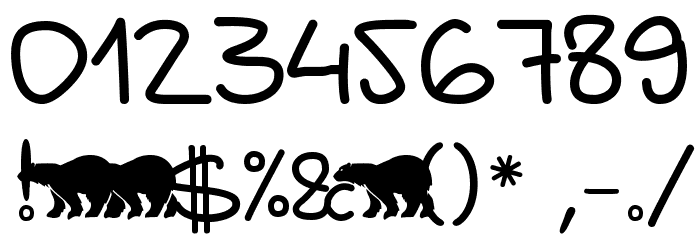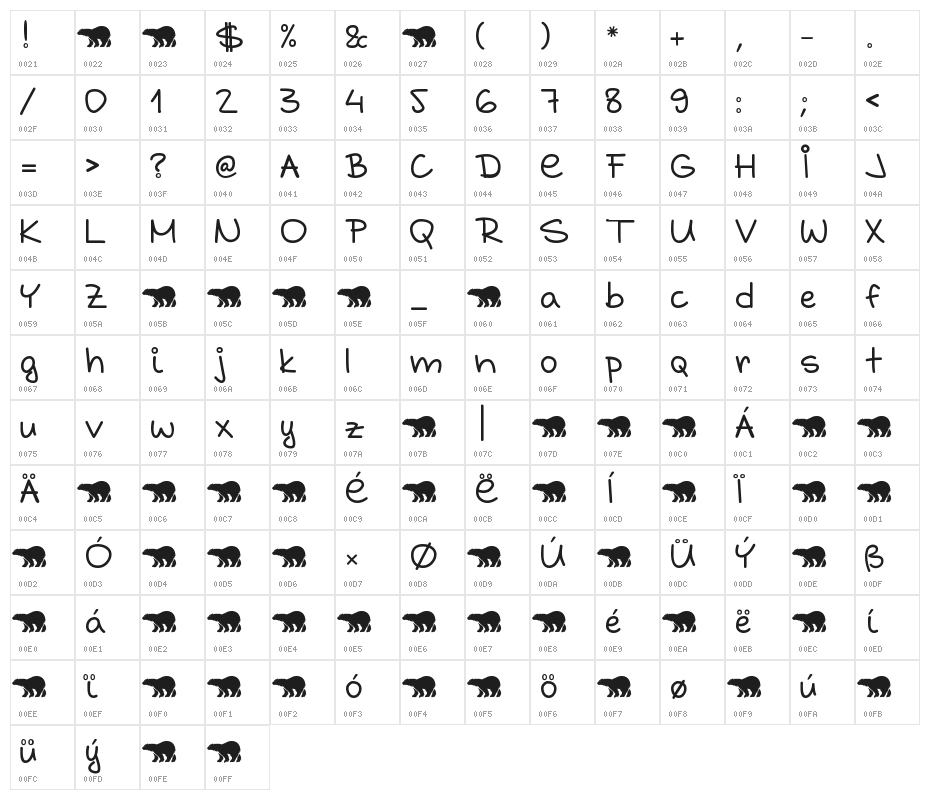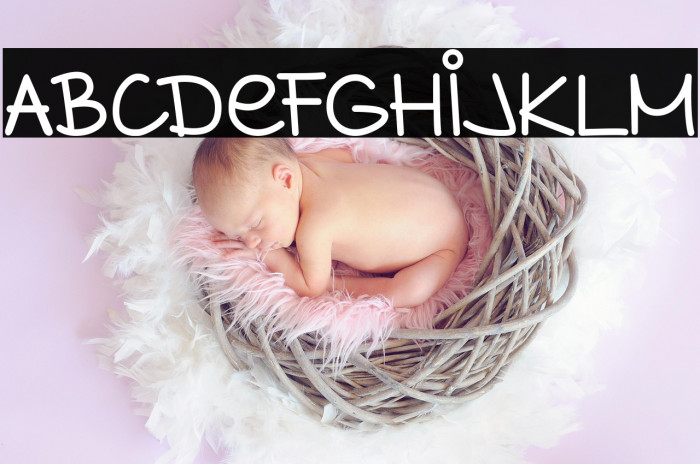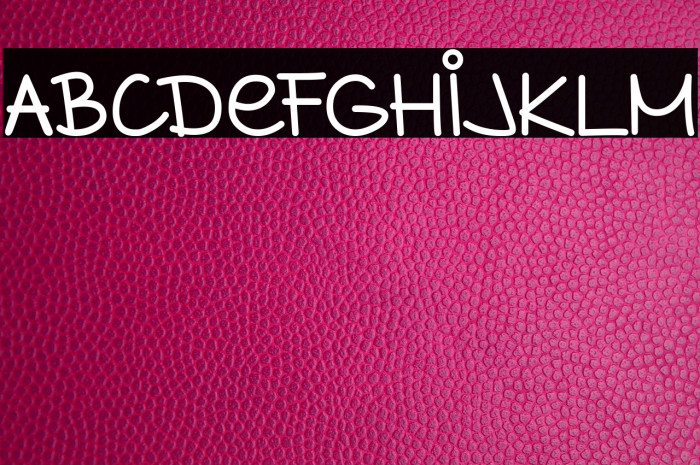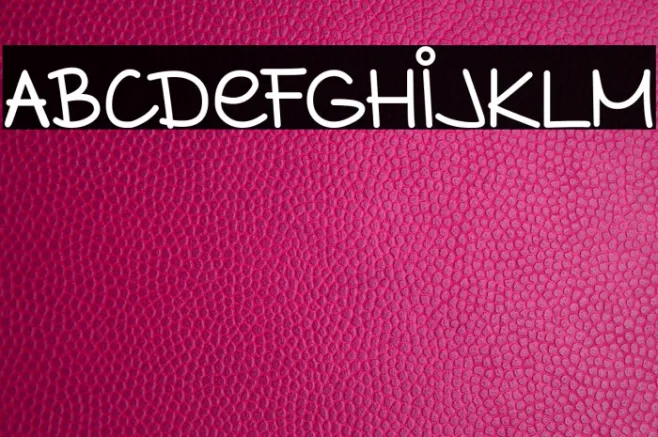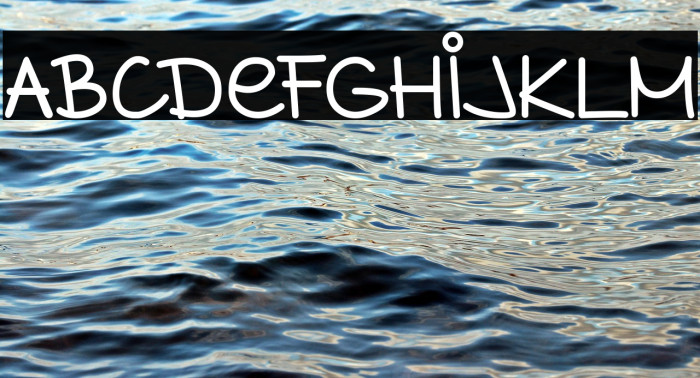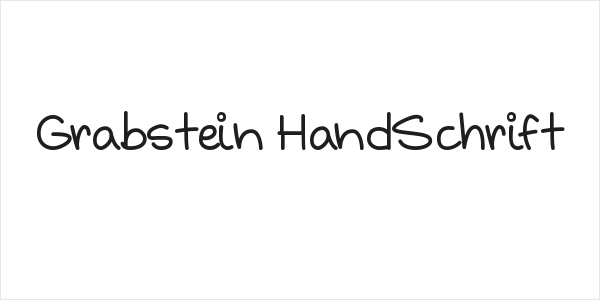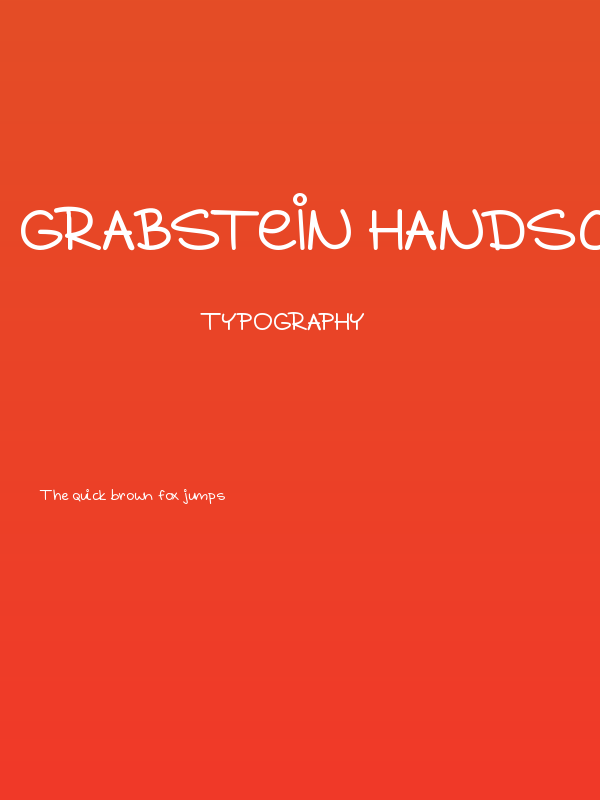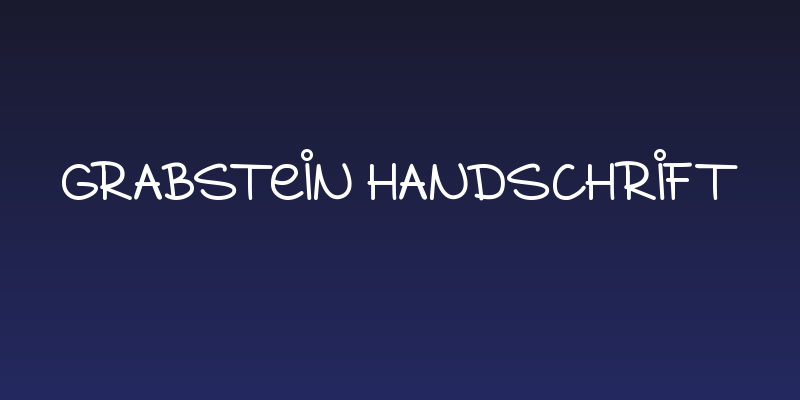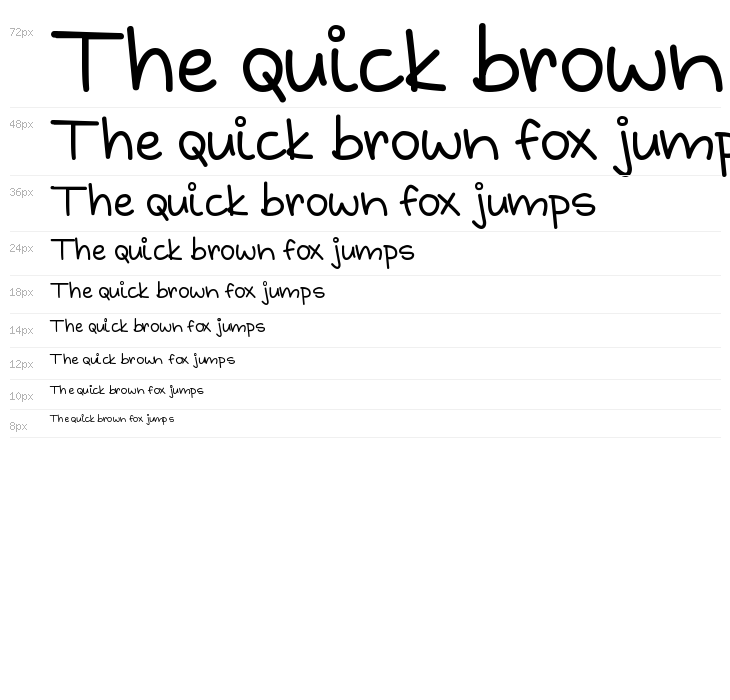
Grabstein HandSchrift Font
Grabstein HandSchrift Description
This playful and whimsical font features a handwritten style with a casual, friendly appearance. The characters are slightly irregular, adding a personal touch to the text. The uppercase and lowercase letters maintain a consistent flow, with rounded edges and a smooth, flowing baseline. The numbers and special characters are designed to match the overall aesthetic, making them suitable for creative projects. The font's unique style is enhanced by its moderate character spacing, which provides a balanced and readable look.
| Proposed Projects | Ideal for greeting cards, children's books, playful branding, and casual invitations. |